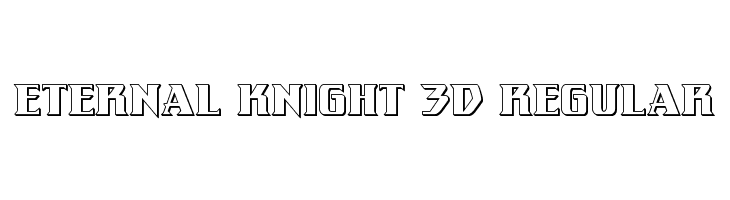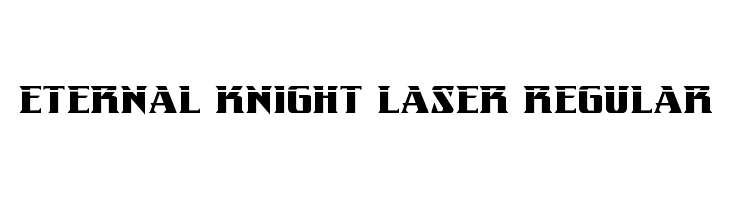
A bold, futuristic font with sharp, angular edges and a stencil-like design.
• Eternal Knight Regular لخطوط تنزيل
A bold, angular font with a medieval and geometric style.